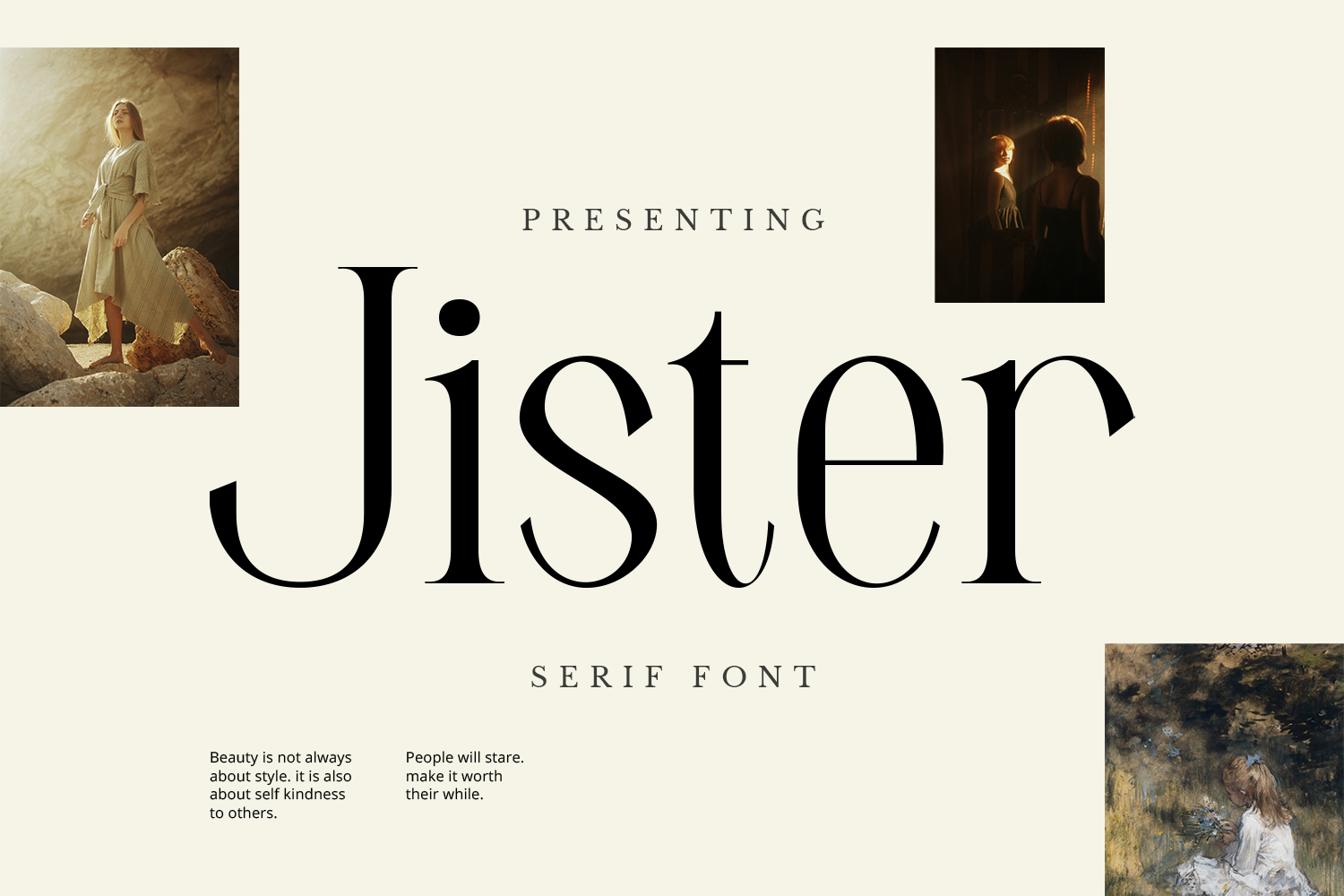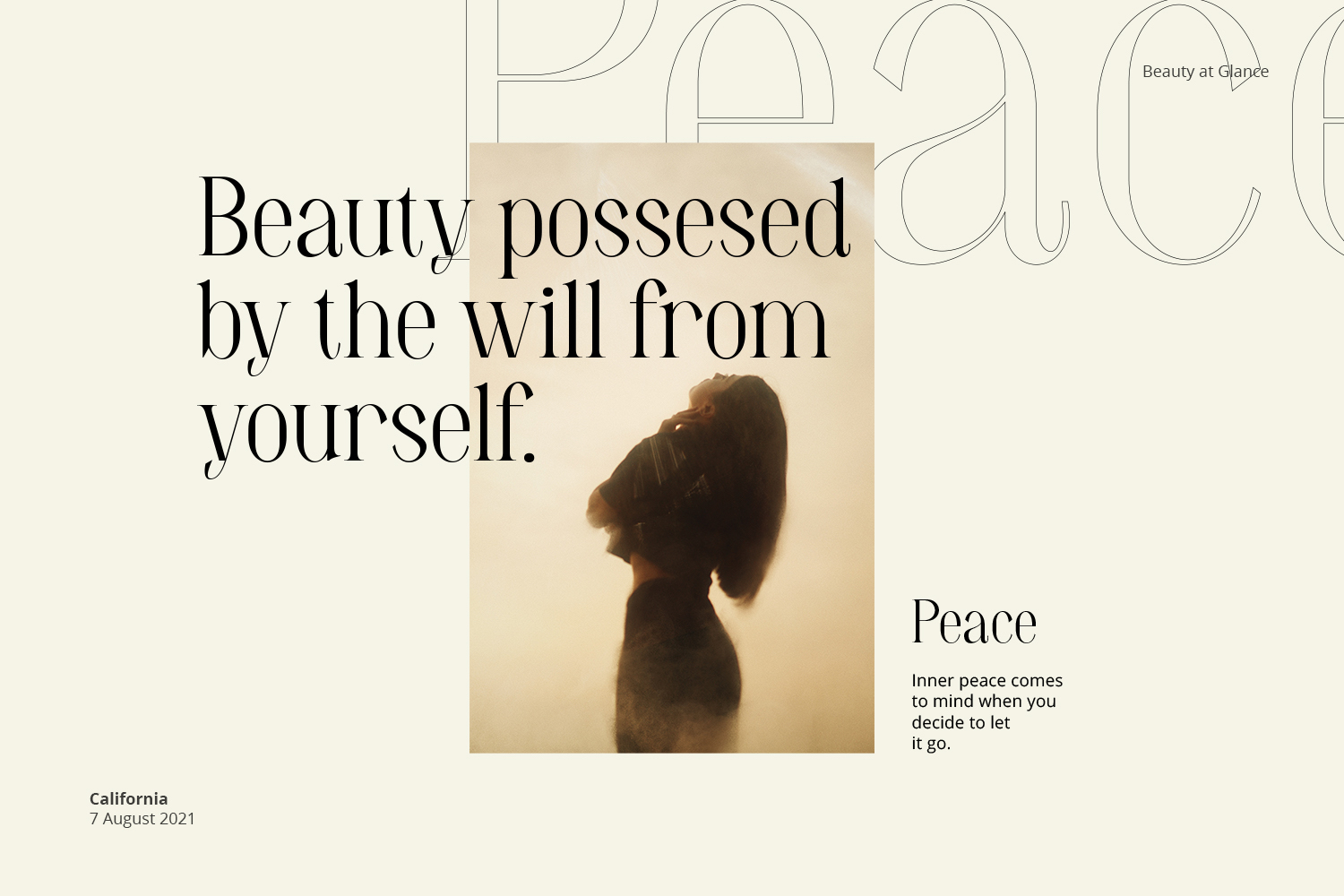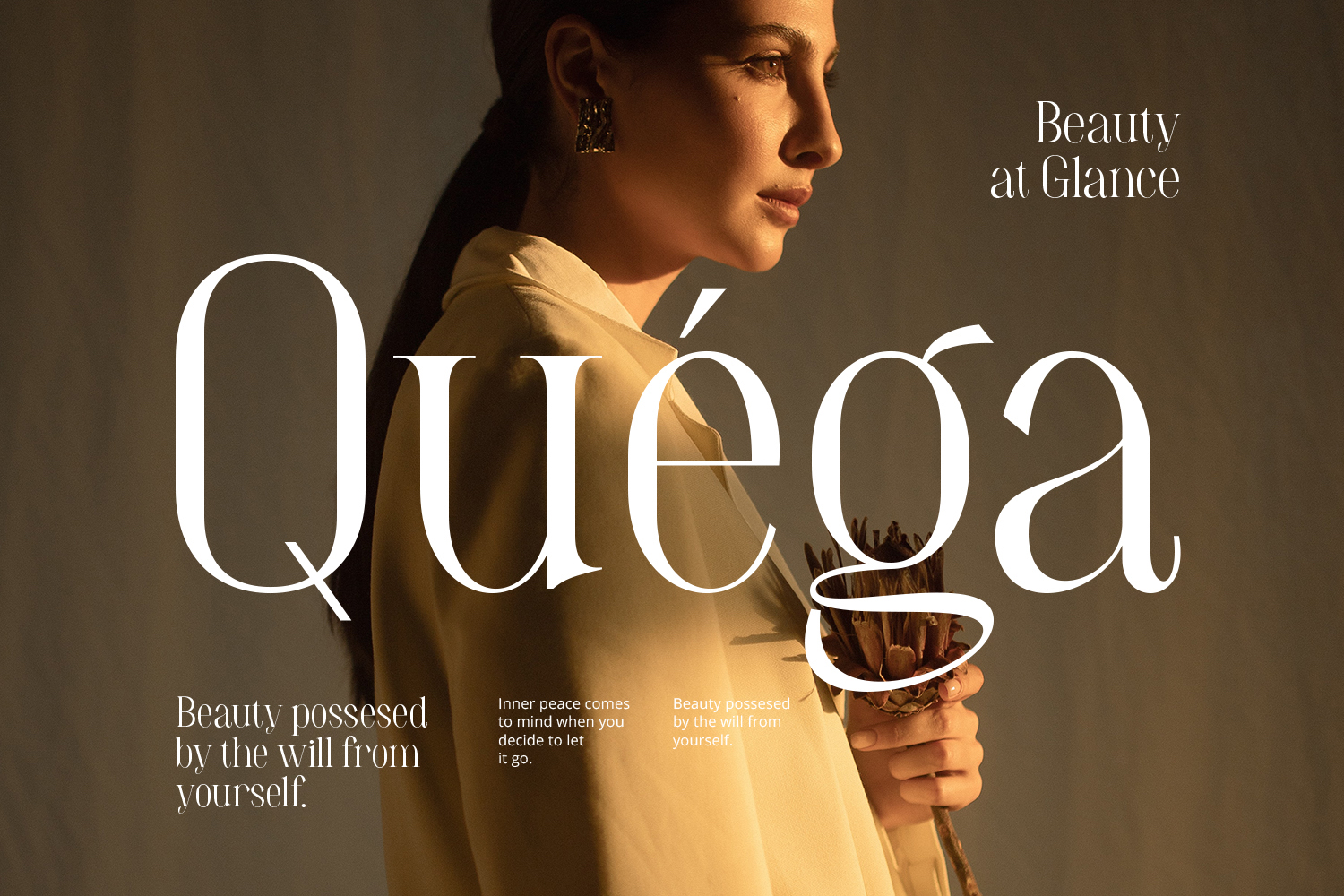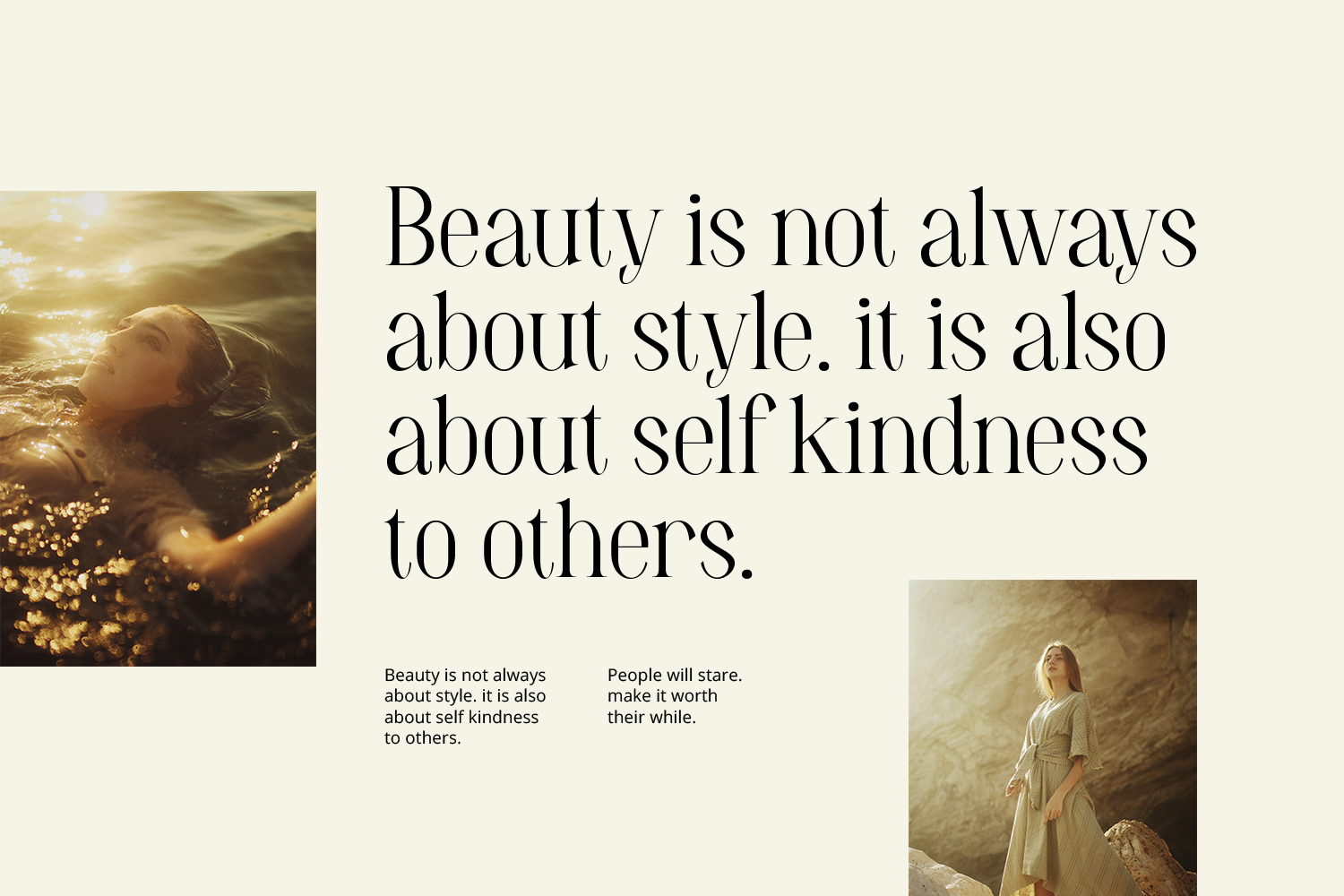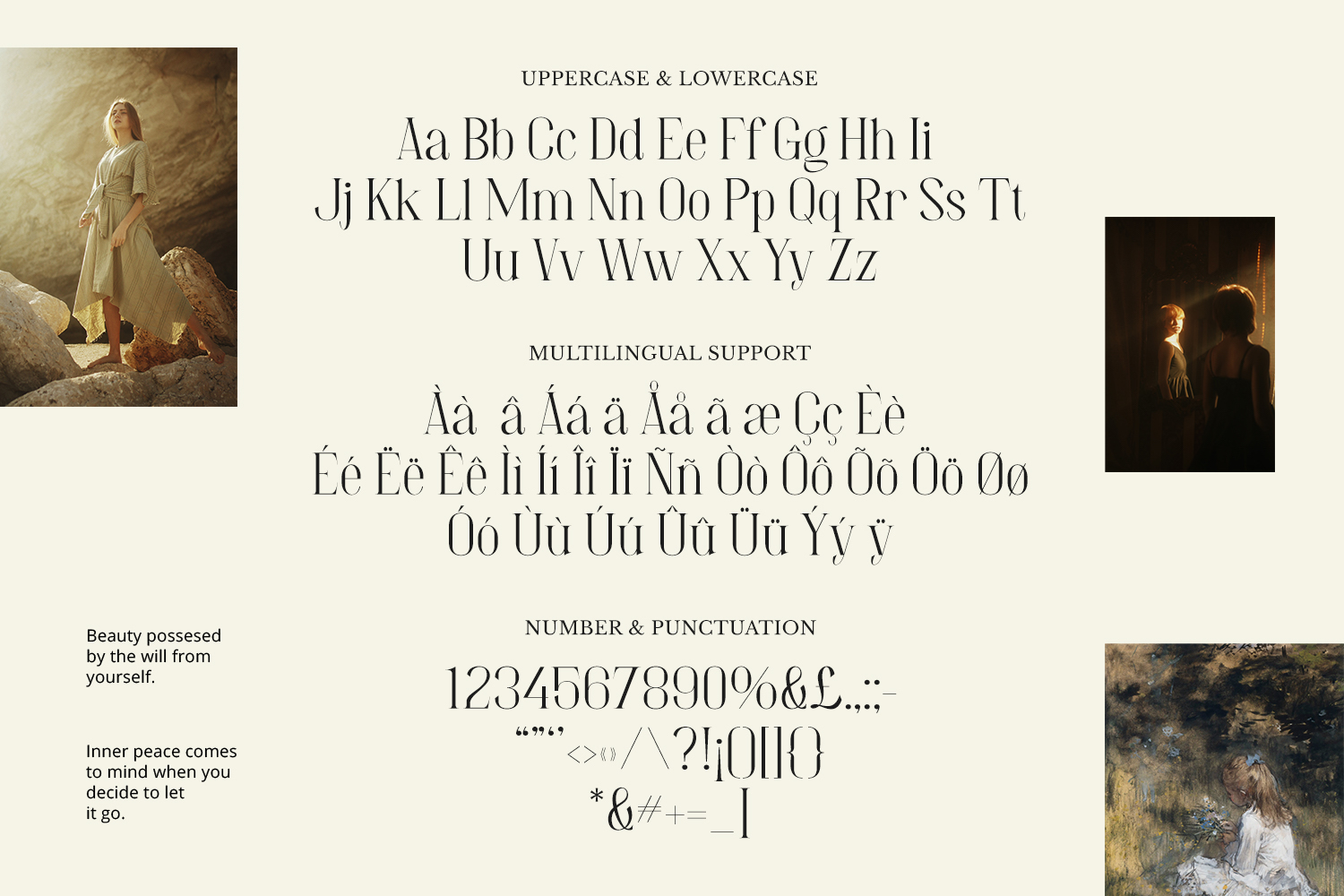
Jister is a refined and elegant serif font that brings a sense of sophistication to any design. Its tall letterforms and high contrast strokes lend a graceful, fashion-forward aesthetic, making it ideal for editorial layouts, fashion branding, and premium product packaging. Each character is carefully crafted with subtle curves and stylish flair, reflecting timeless beauty and modern sensibility in harmony.
With full multilingual support and an extensive set of ligatures and punctuation, Jister offers versatility for global design needs. The font’s delicate yet confident appearance ensures your message is delivered with clarity and charm, especially when used in headlines, quotes, or artistic branding. Whether you’re telling a story or crafting a luxury identity, Jister elevates every word.
Jister